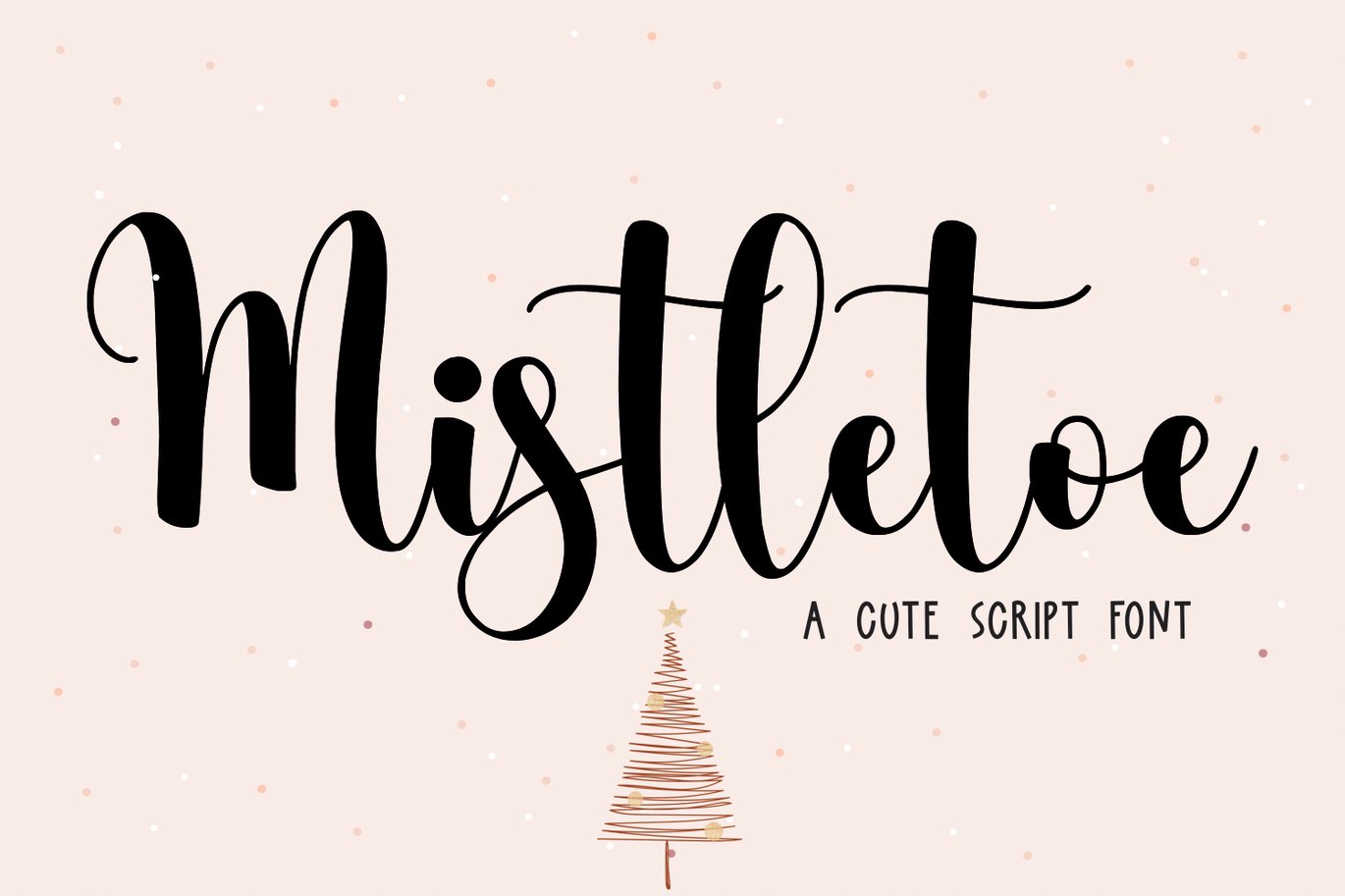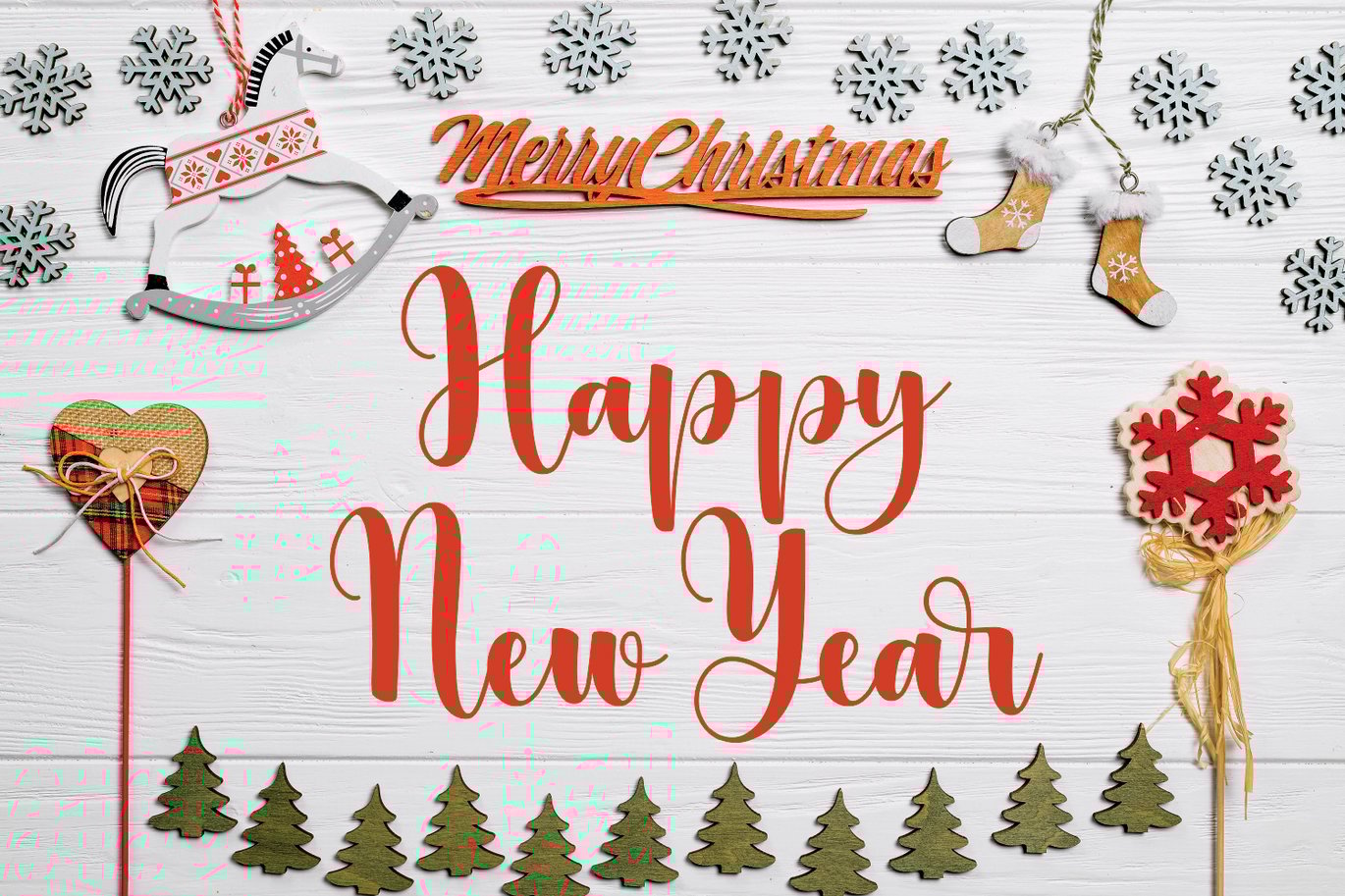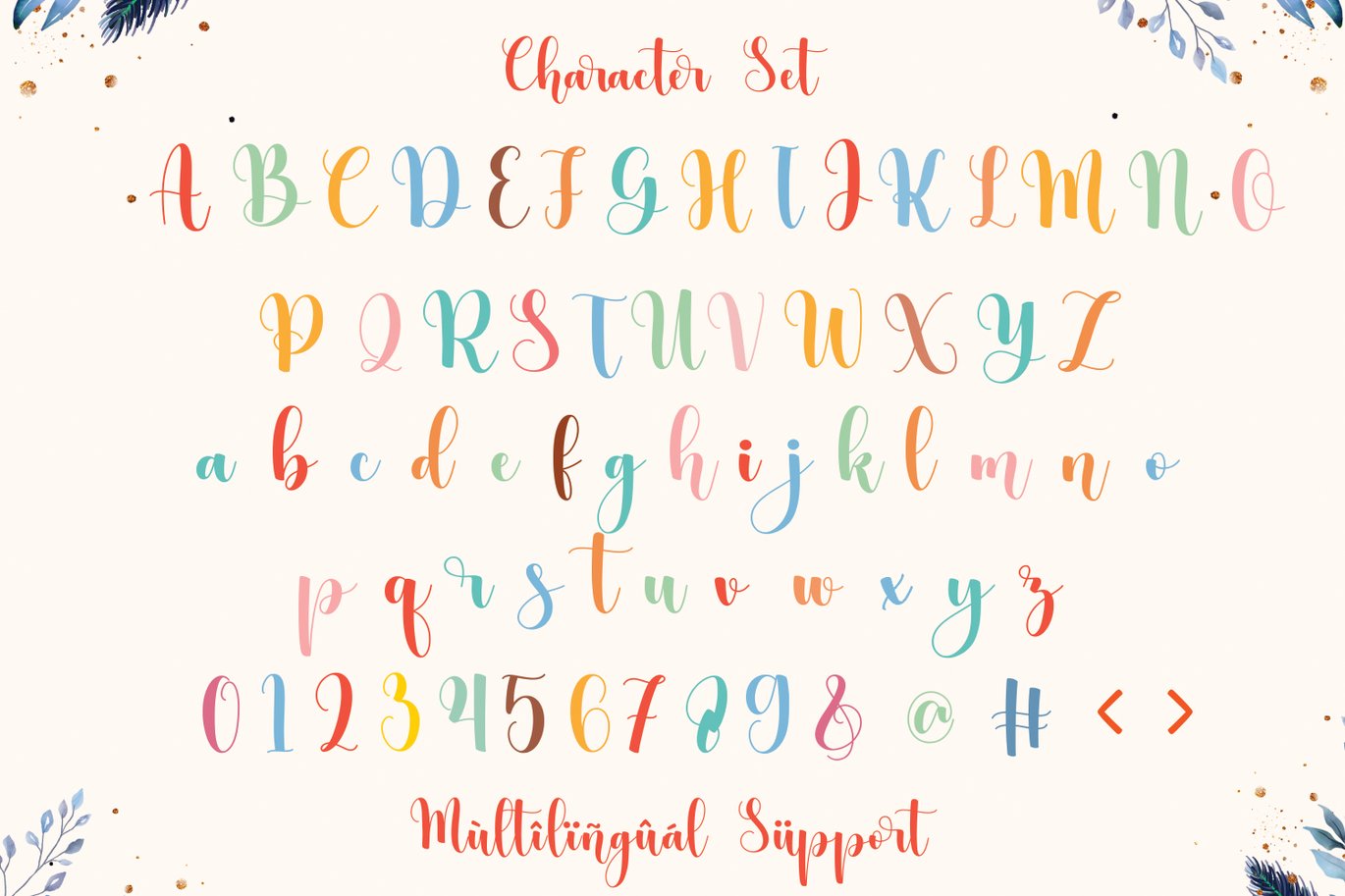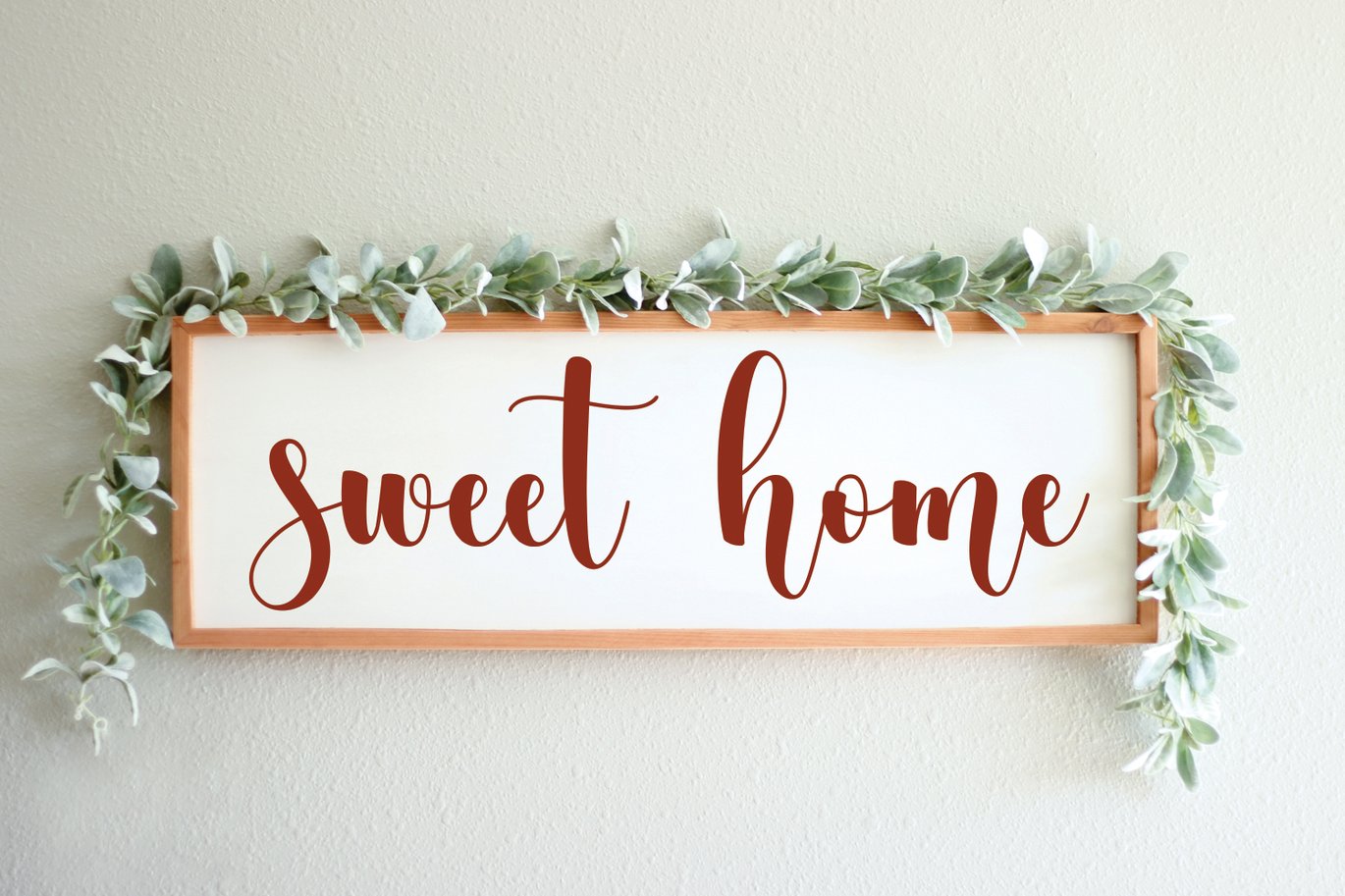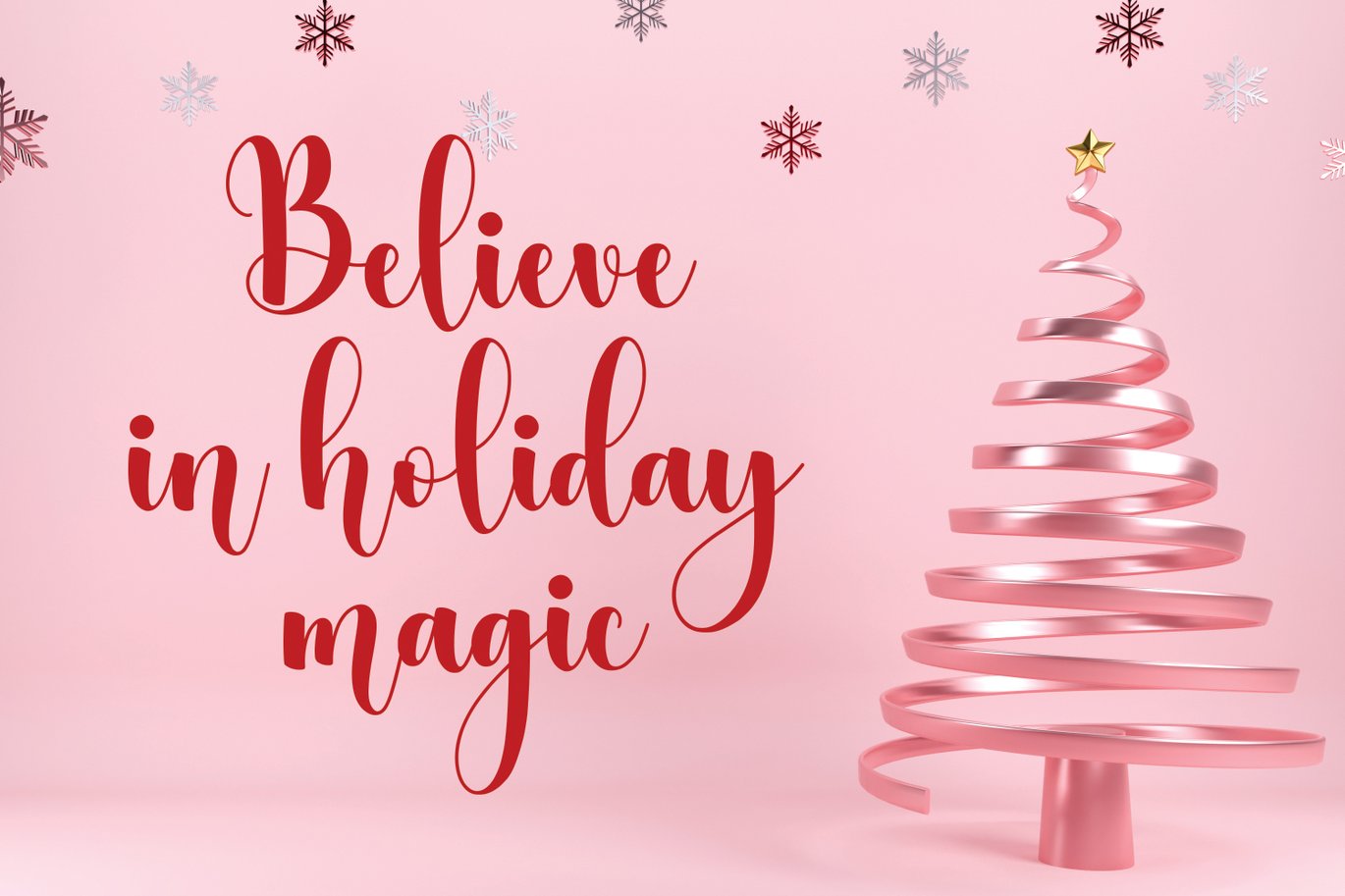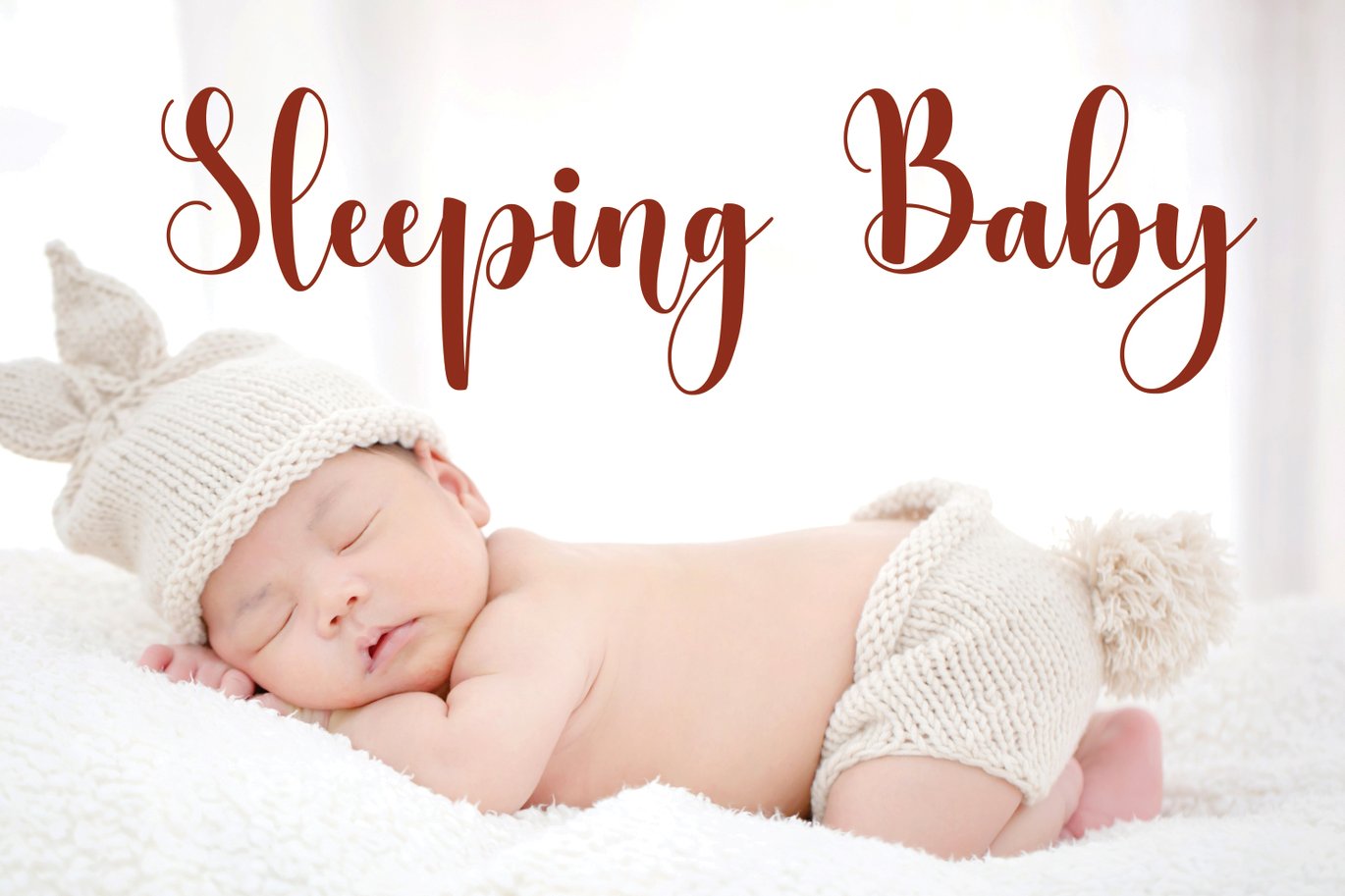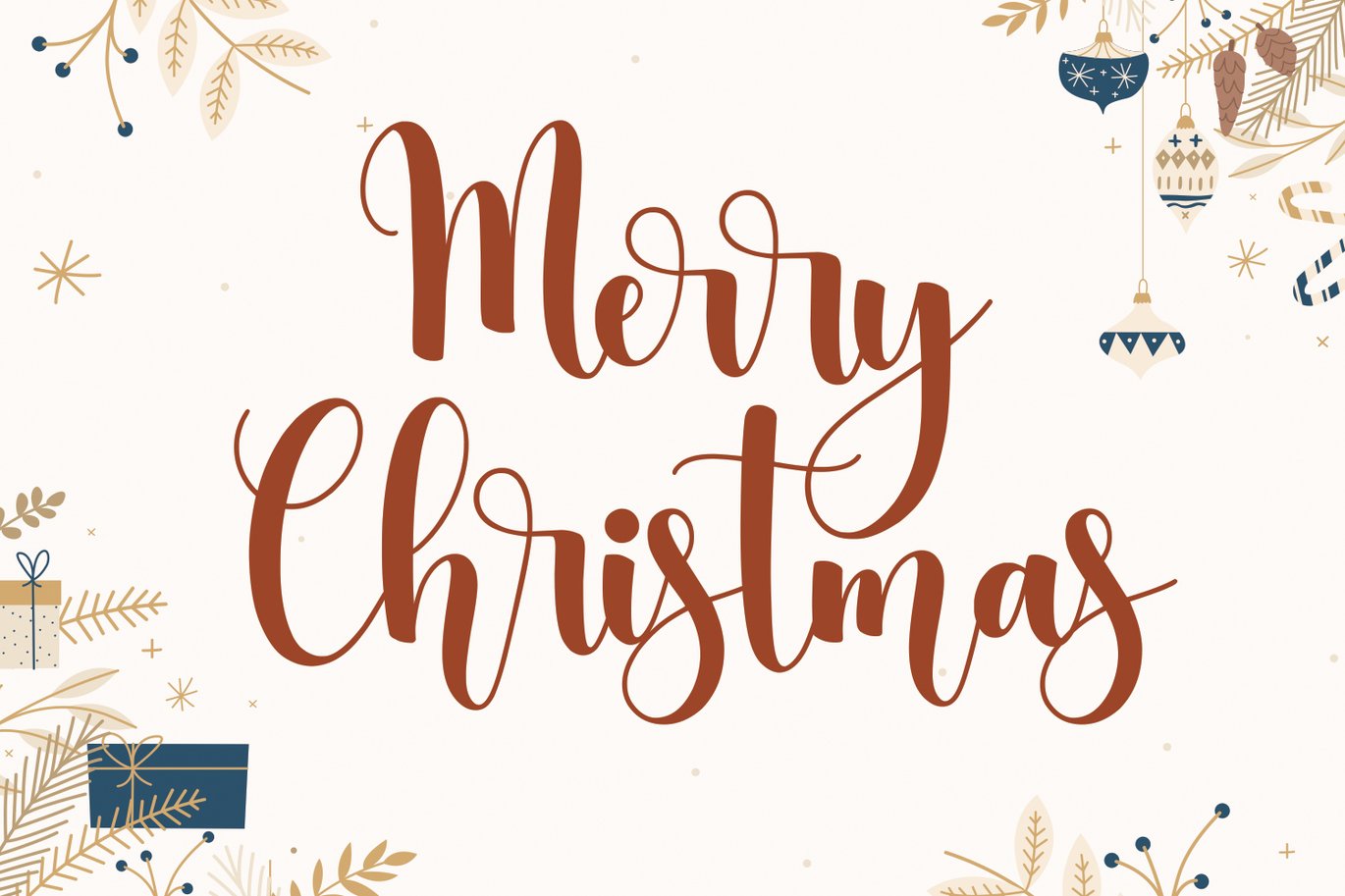
Mistletoe – Christmas Font
Introducing Mistletoe – a charming script font that captures the essence of elegance and playfulness. Its graceful curves and gentle strokes evoke a sense of warmth, making it perfect for projects that require a touch of whimsy. Mistletoe’s delightful swashes add a unique flair, infusing your designs with a touch of sophistication that’s bound to captivate your audience. Whether you’re working on invitations, branding, or creative displays, Mistletoe’s versatility will undoubtedly elevate your creations to a new level of enchantment.
Dive into the world of creativity with Mistletoe’s endearing script. Add a dash of festive spirit to your designs, inviting eyes to dance along its elegant lines. Elevate your projects with Mistletoe’s unique charm, and let its enchanting vibe spread joy and wonder. Don’t miss the chance to infuse your work with a dash of Mistletoe’s magic – explore this font today and let your creativity flourish like never before!